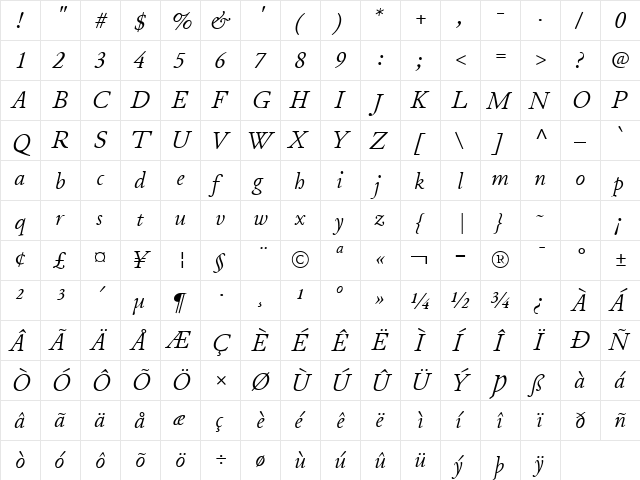
JuniusStandard Italic
Design Context for JuniusStandard Typeface
JuniusStandard is a composed and adaptable typeface that performs quietly and consistently across a wide range of design contexts. The dynamic lean of this cut emphasises speed and emphasis in any layout.